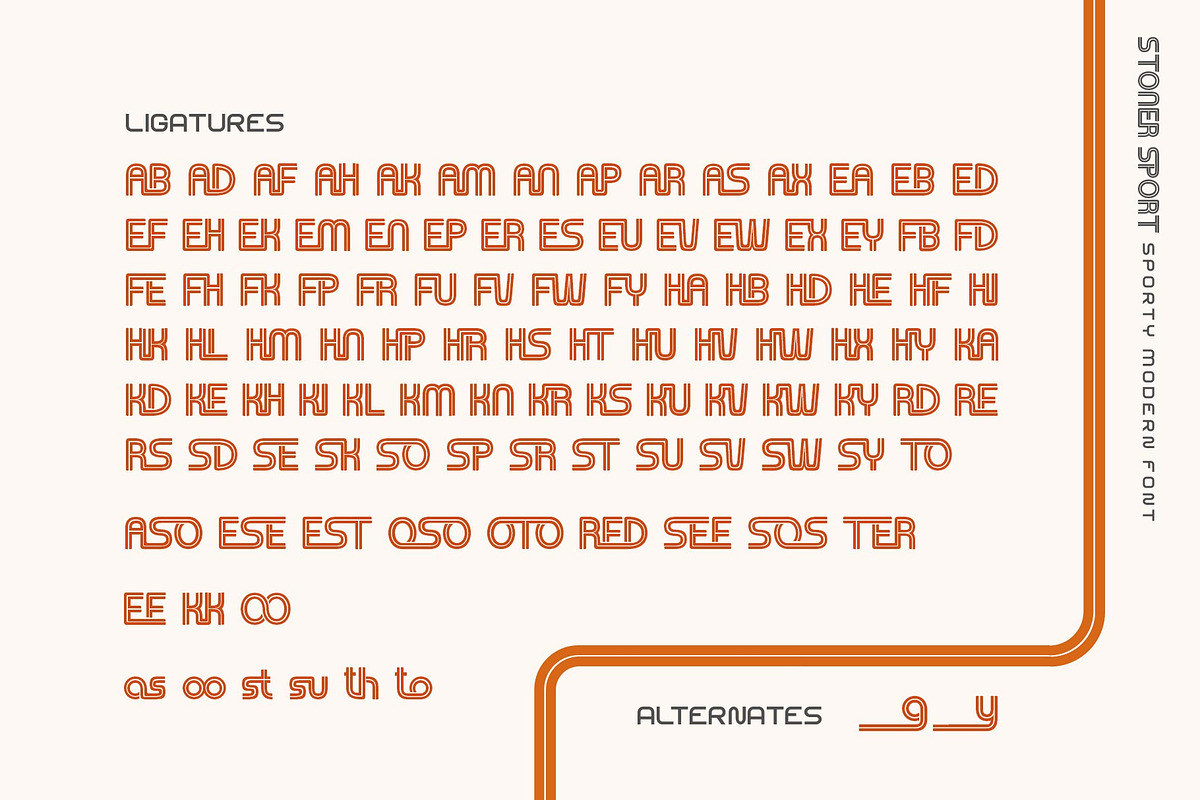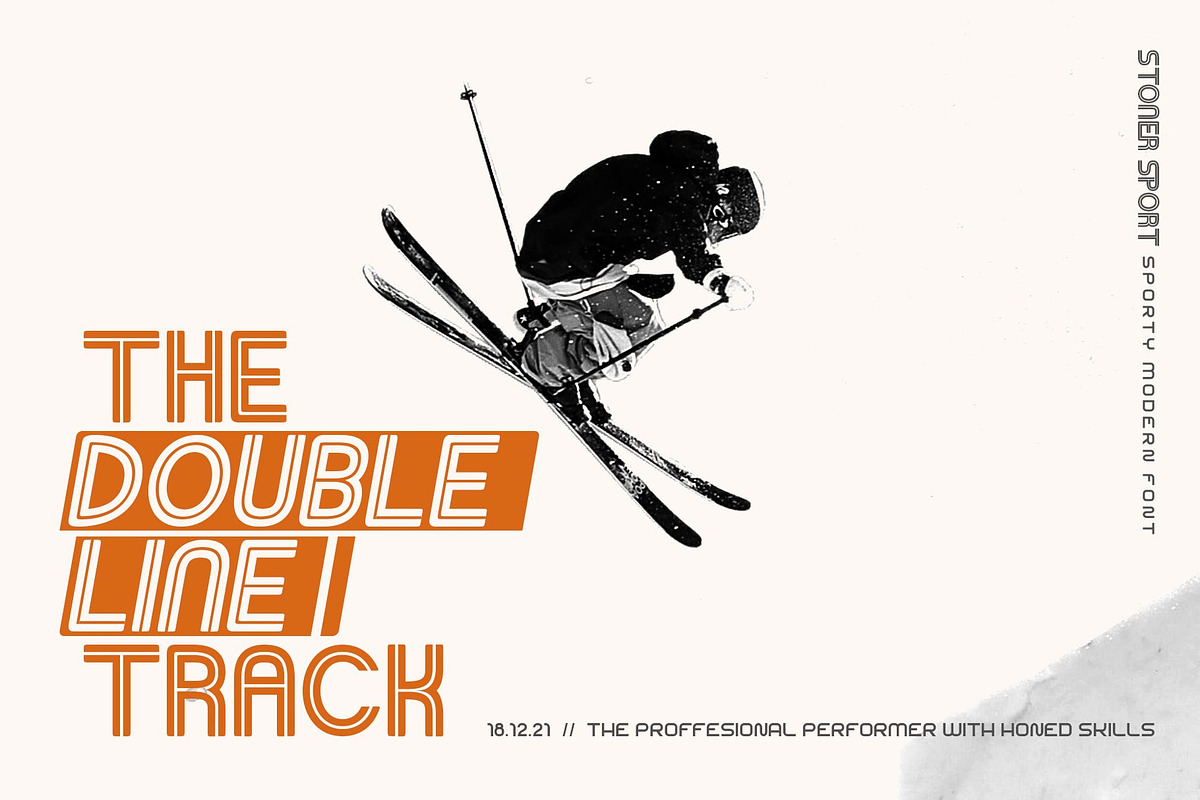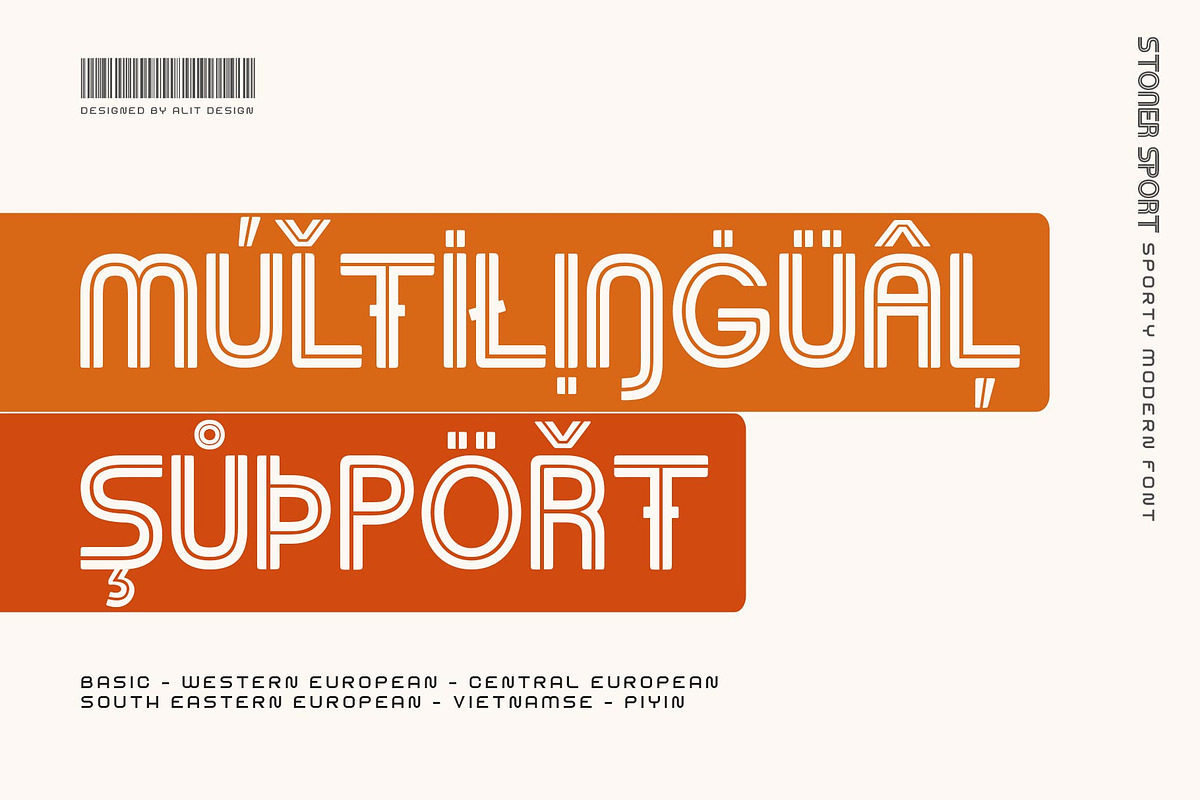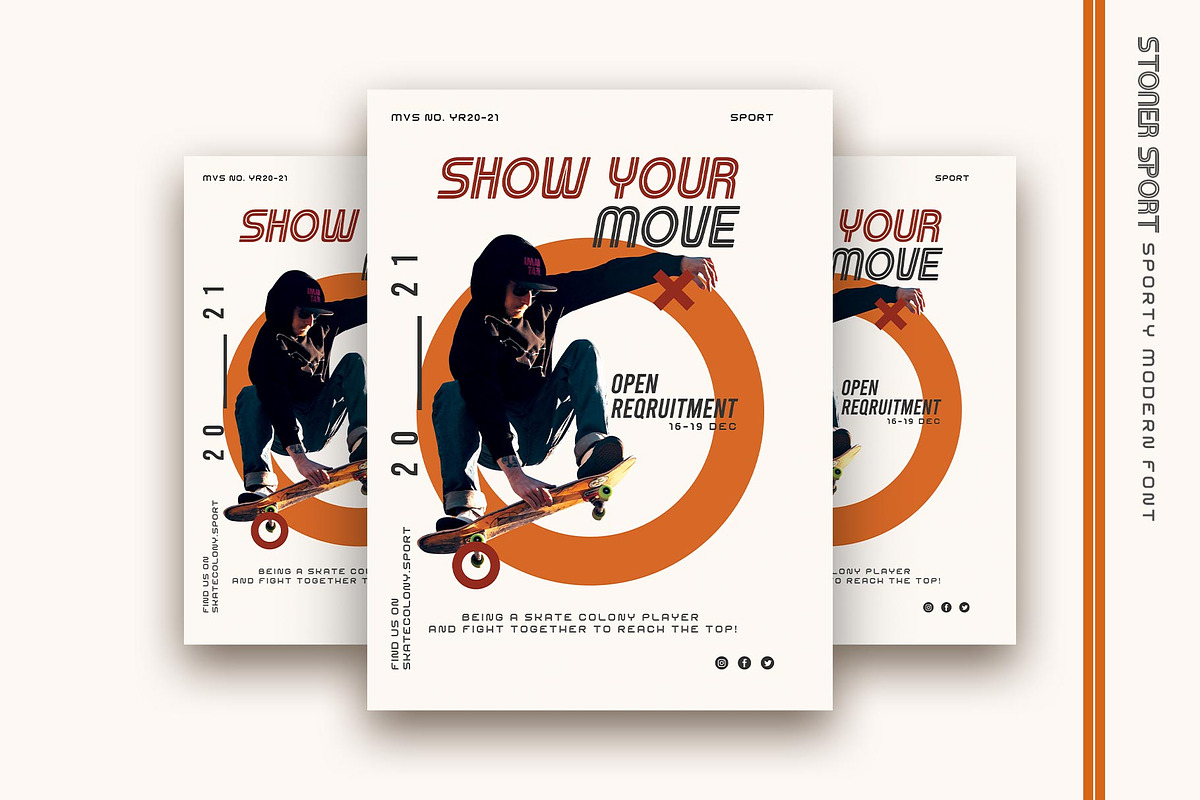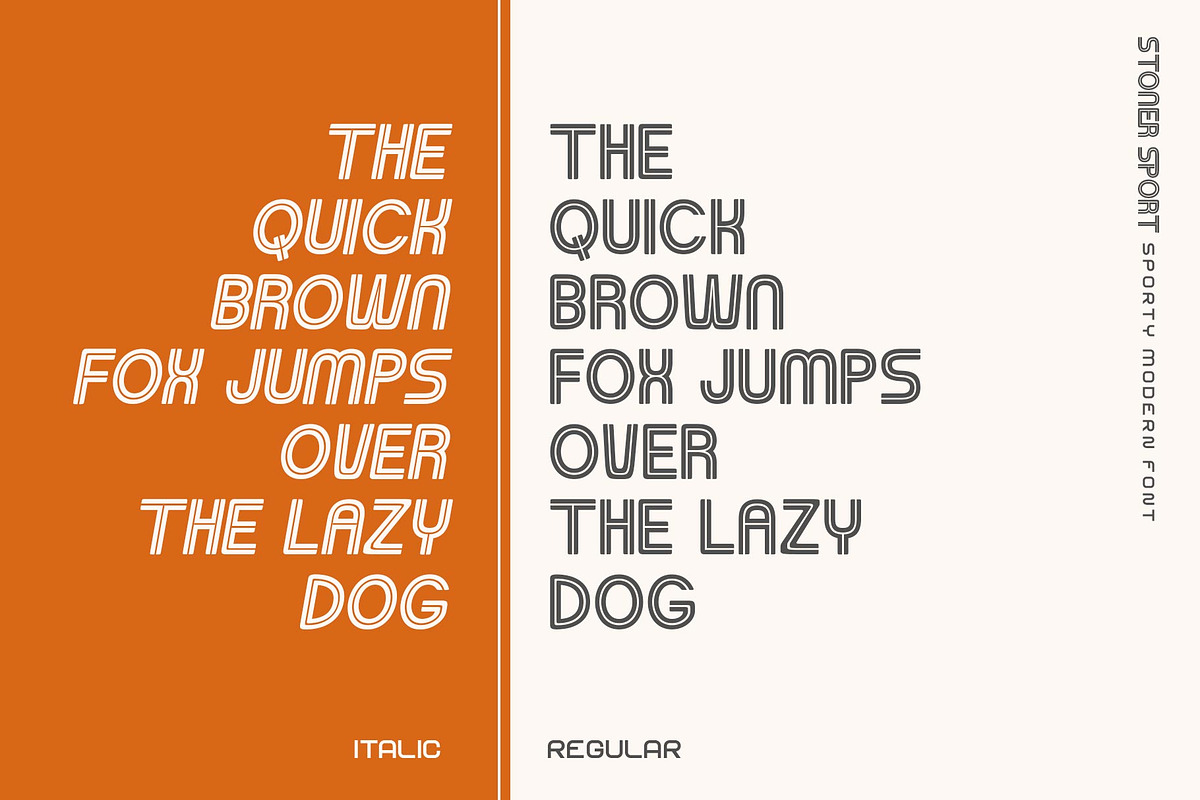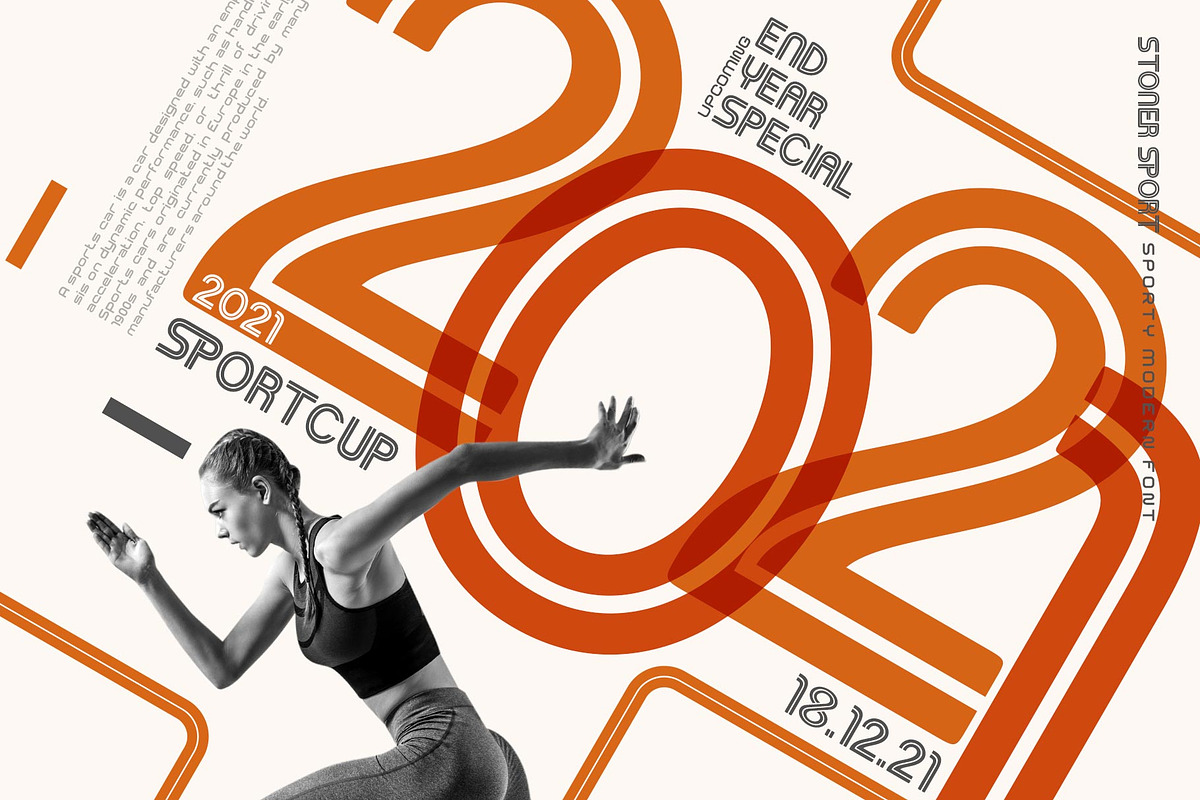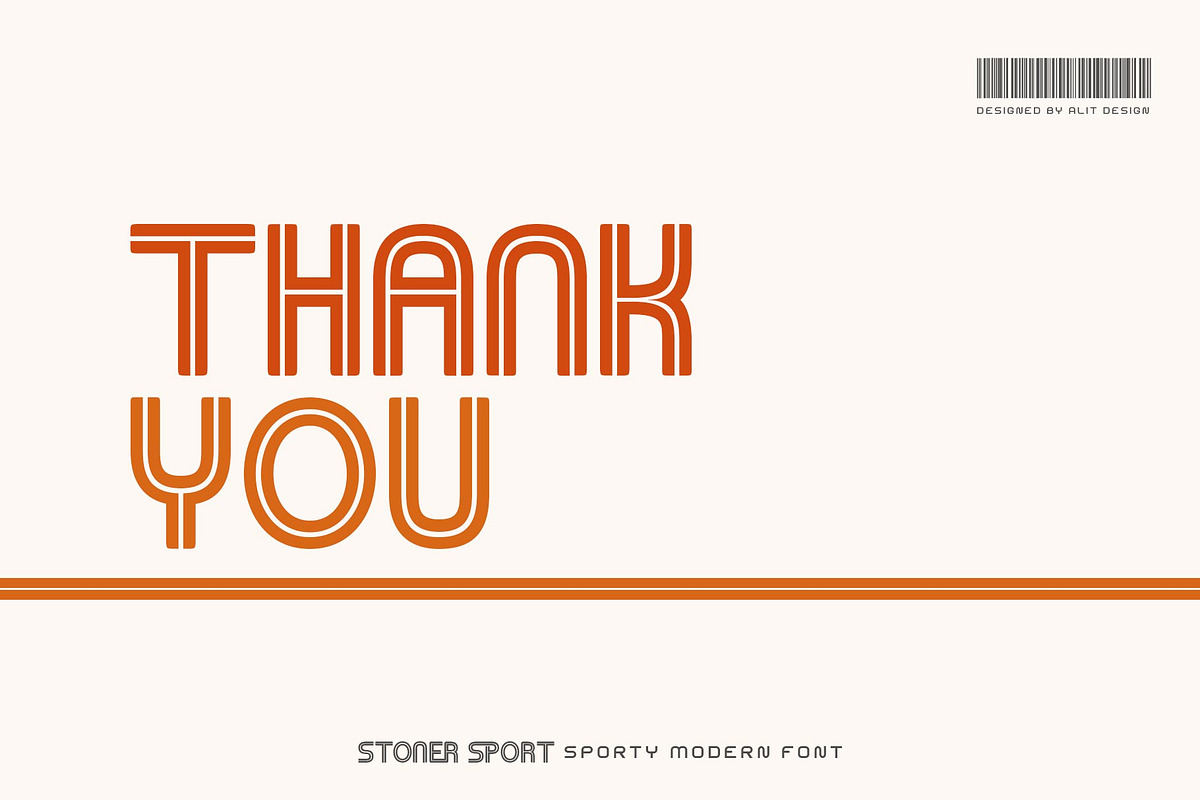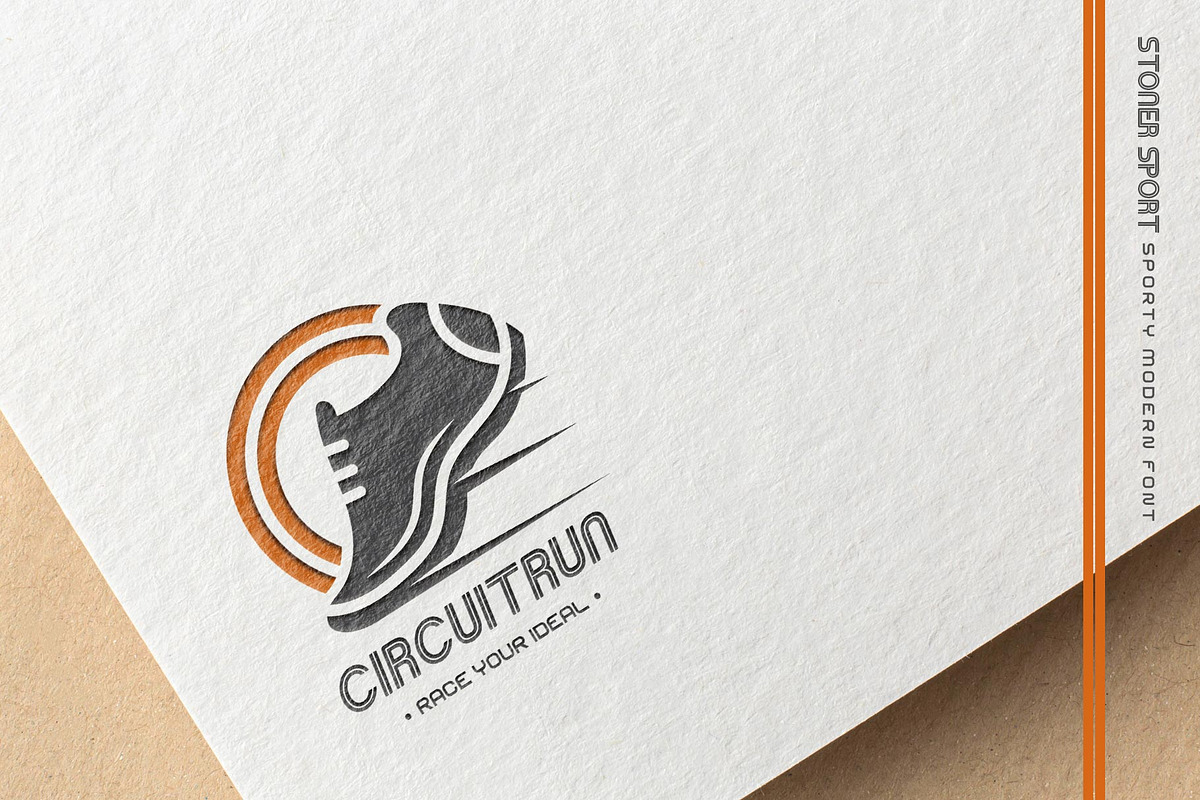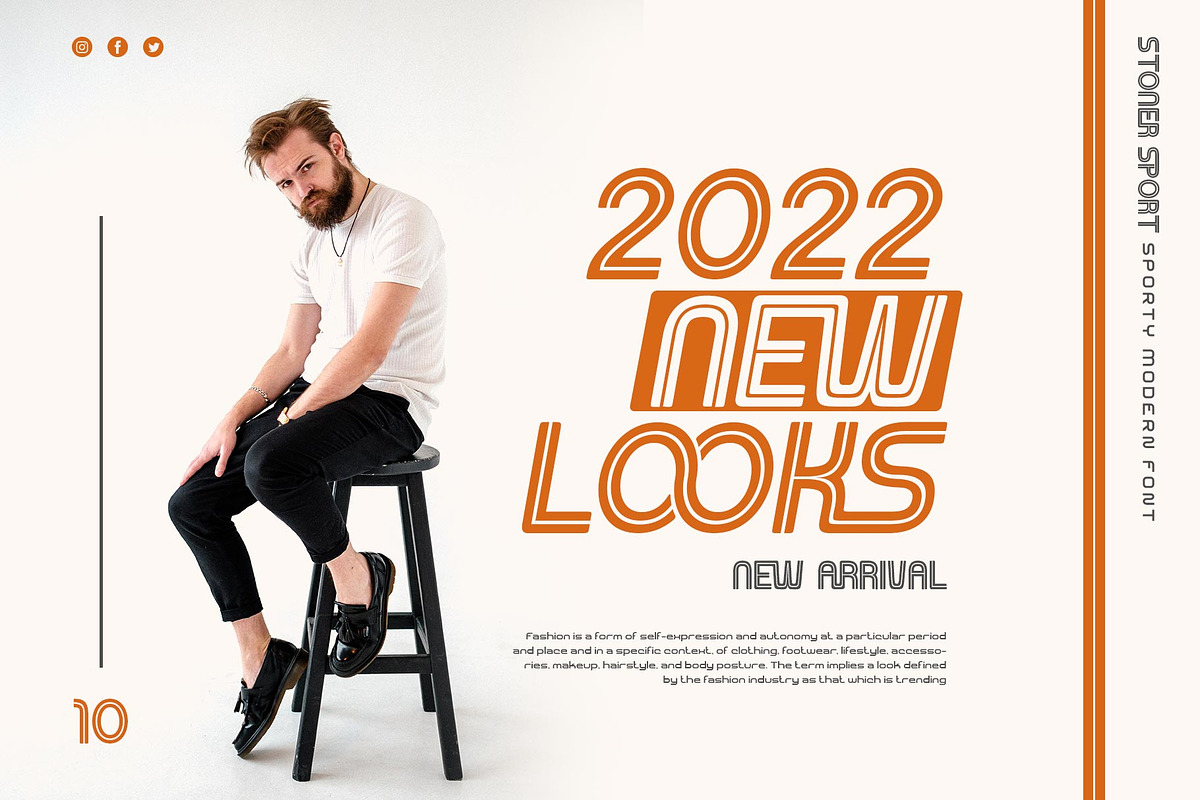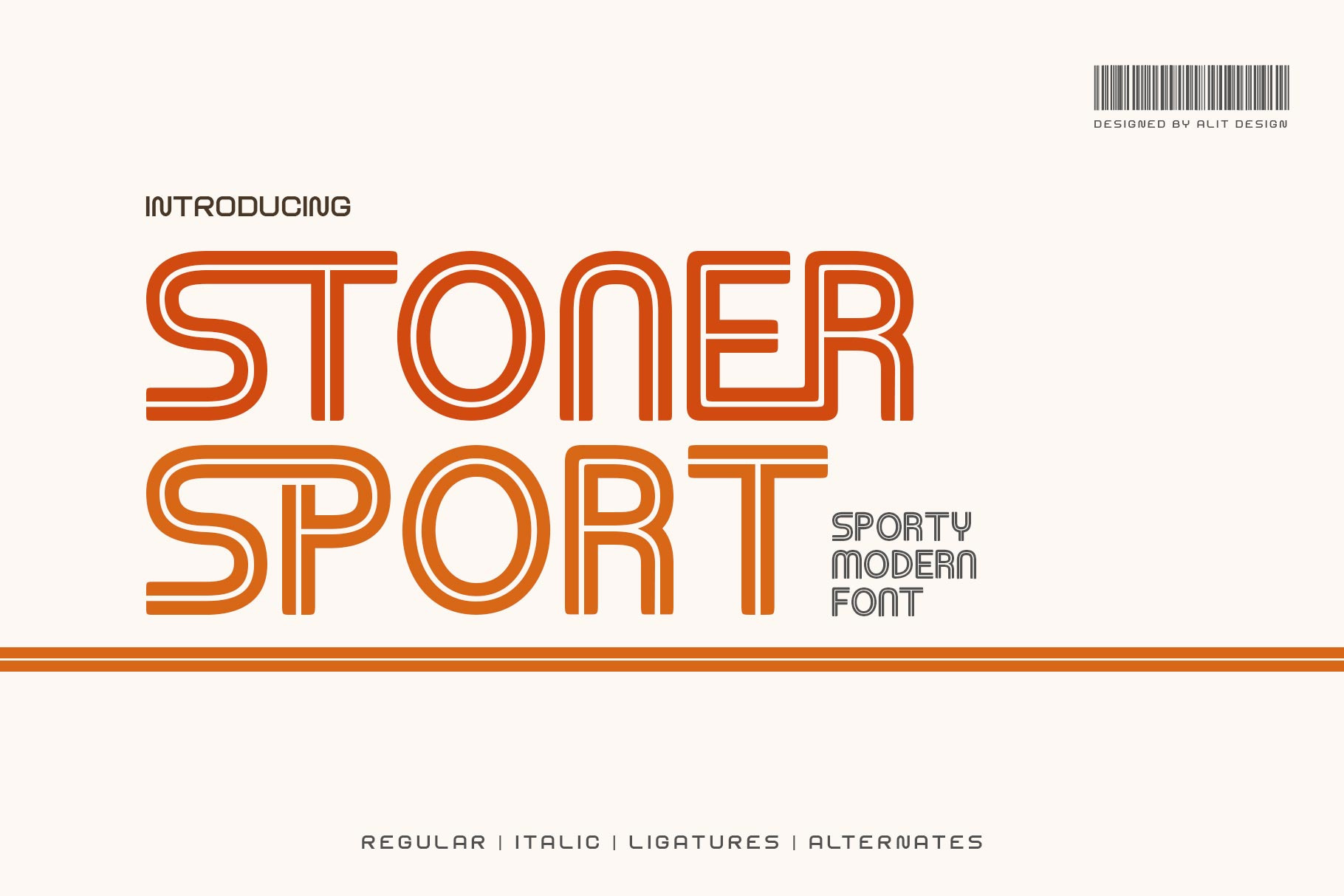
Stoner Sport Typeface
Introducing Stoner Sport Typeface
🏁The Stoner Sport Typeface 🏁 is inspired by a retro display font that is dynamic and unique. This font also has a sporty classic racing theme. Can be used for making logo designs, car stickers, racing event titles and so on with sport race themes.